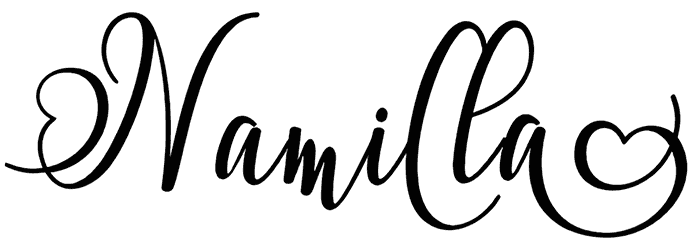
Namilla Font
Sometimes taking a risk and adding a romantic touch such as a heart to a casual script font would lead to an unimaginable result like Namilla. This font comes with a cursive design that dances along the baseline, thus conveying a sense of love, softness, delicacy, and momentum.
If you really crave using this dream font in your posters, logos, gift cards, invitations, and illustrations, it’s better to overlook the lack of readability.